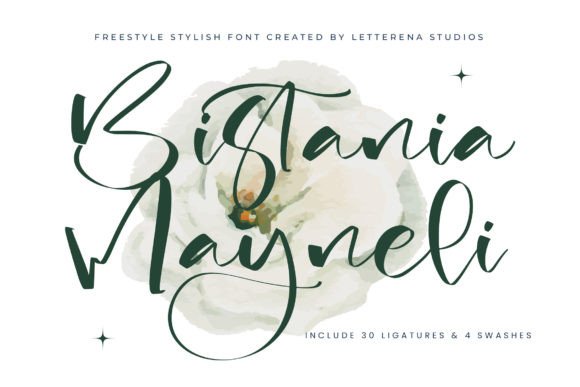
The Elusive Perfect Font: My Encounter with Bistania Mayneli
Ah, the quest for the perfect font! It’s a journey every designer, crafter, and creative hobbyist can relate to. I recall working on a luxury branding project, determined to find a font that exuded elegance and sophistication. My client wanted a logo that screamed luxury, and I was on a mission to deliver. After hours of scouring font libraries and testing various typefaces, I stumbled upon Bistania Mayneli – a Freestyle Stylish Font from Letterena. It was love at first sight! ✨
An Honest Review of Bistania Mayneli
• 💫 Elegant and luxurious feel, perfect for high-end projects
• ✅ Highly versatile, suitable for logos, branding, packaging, and more
• 🎨 Beautifully crafted, with intricate details and swashes
• 👍 Excellent for creating visually striking headlines and titles
While Bistania Mayneli is an exceptional font, there are a few things to keep in mind: ⚠️
• 🤔 May require some experimentation to get the hang of using OpenType features and glyphs
• ⚠️ Not ideal for body text or long paragraphs, due to its script nature
The Story Behind Bistania Mayneli
Rumor has it that Bistania Mayneli was inspired by the elegant calligraphy of 18th-century European nobility. The font’s creator, a talented type designer, sought to capture the essence of luxury and refinement in a single, stunning typeface. Whether or not this story is true, one thing is certain – Bistania Mayneli is a masterpiece of modern calligraphy. 🎨
A: For branding projects, use Bistania Mayneli as a logo or title font, and pair it with a clean sans-serif font for body text. This will create a beautiful contrast and make your brand stand out.